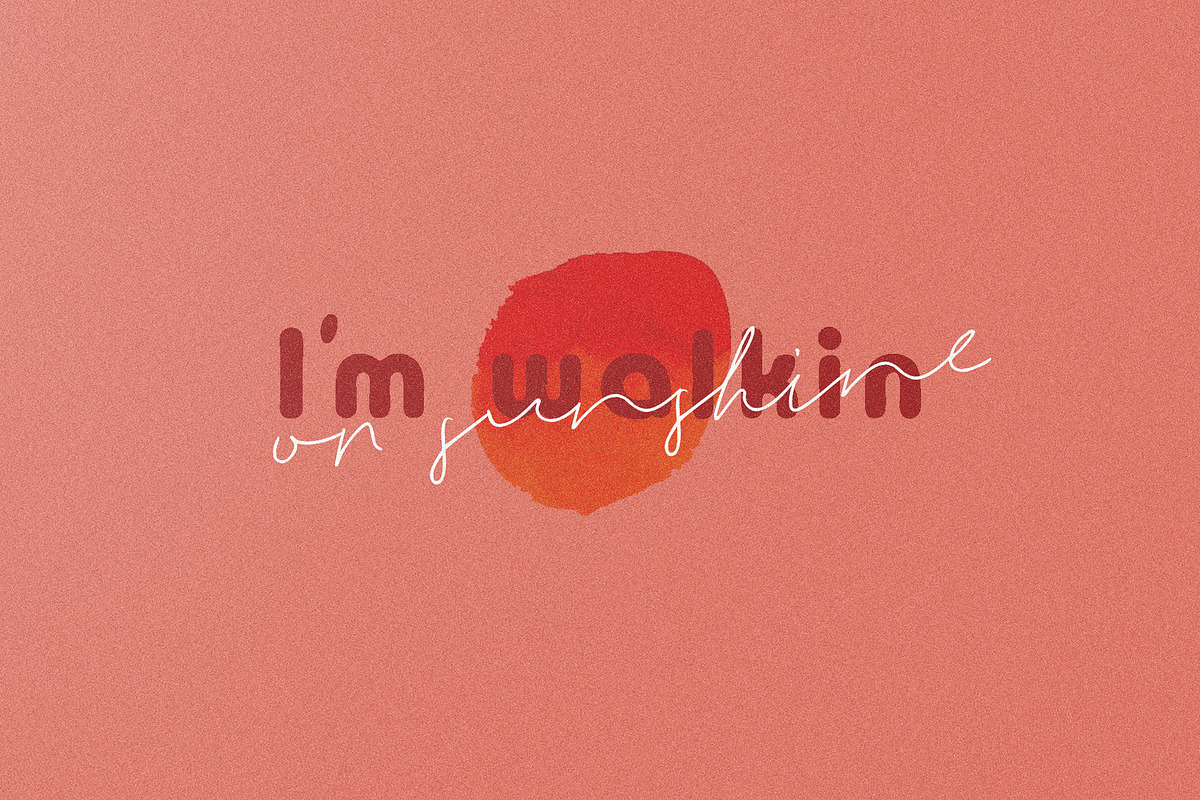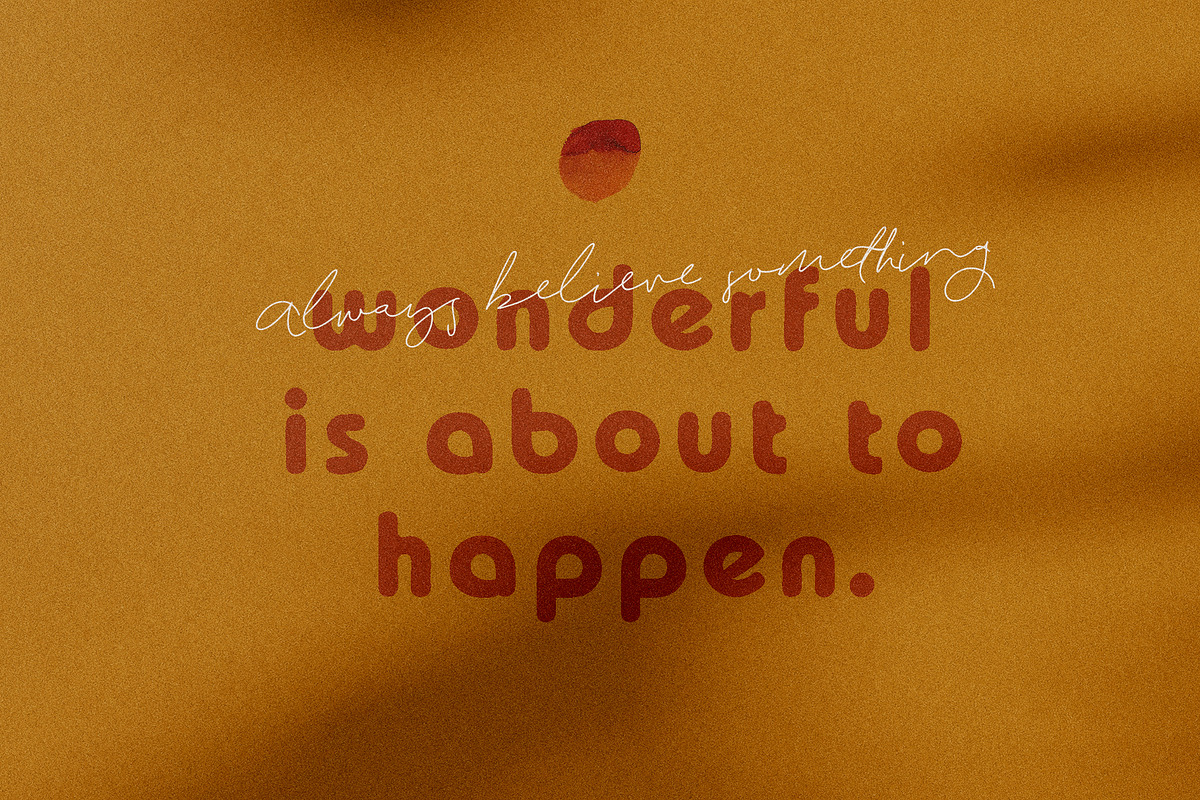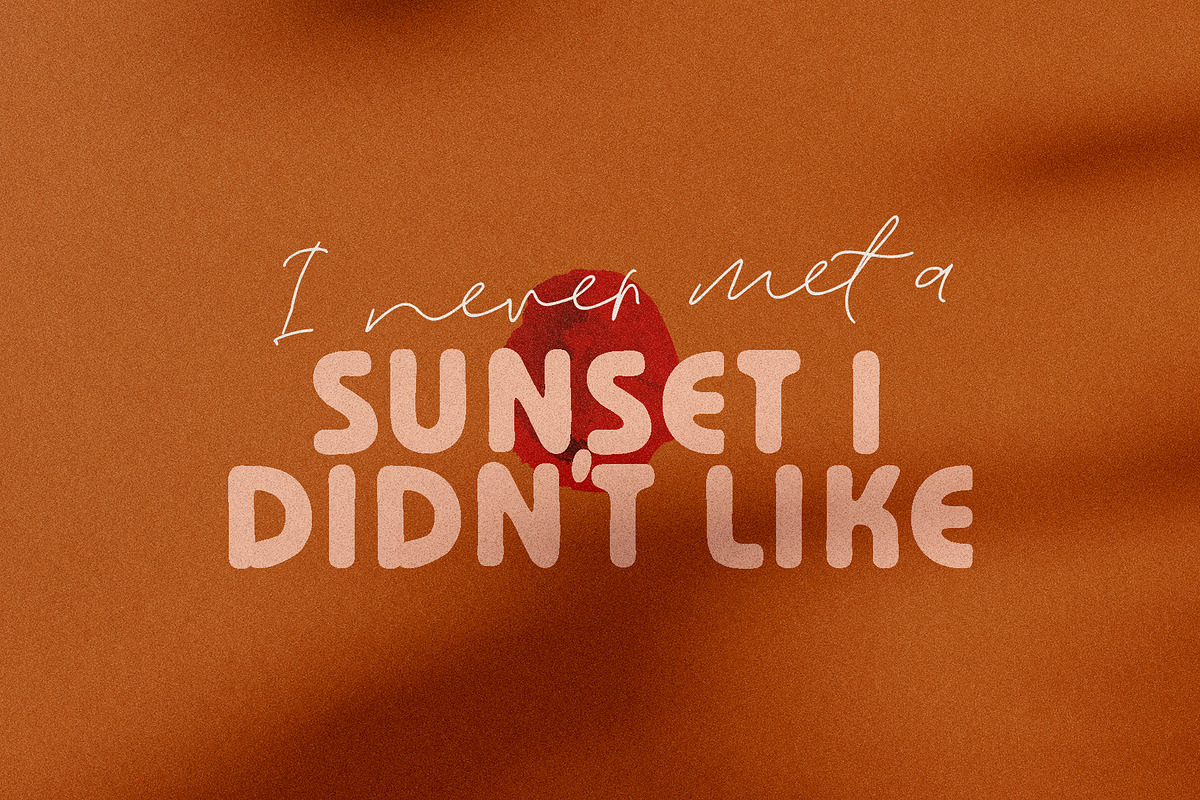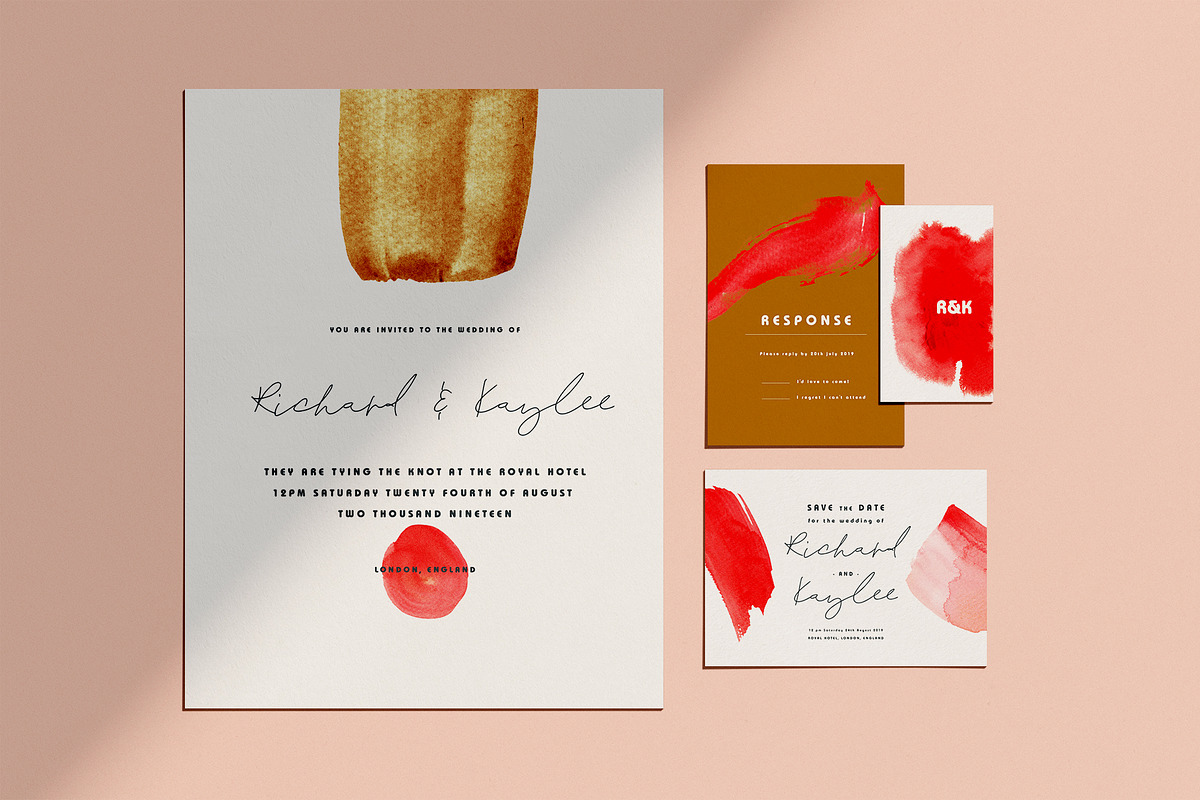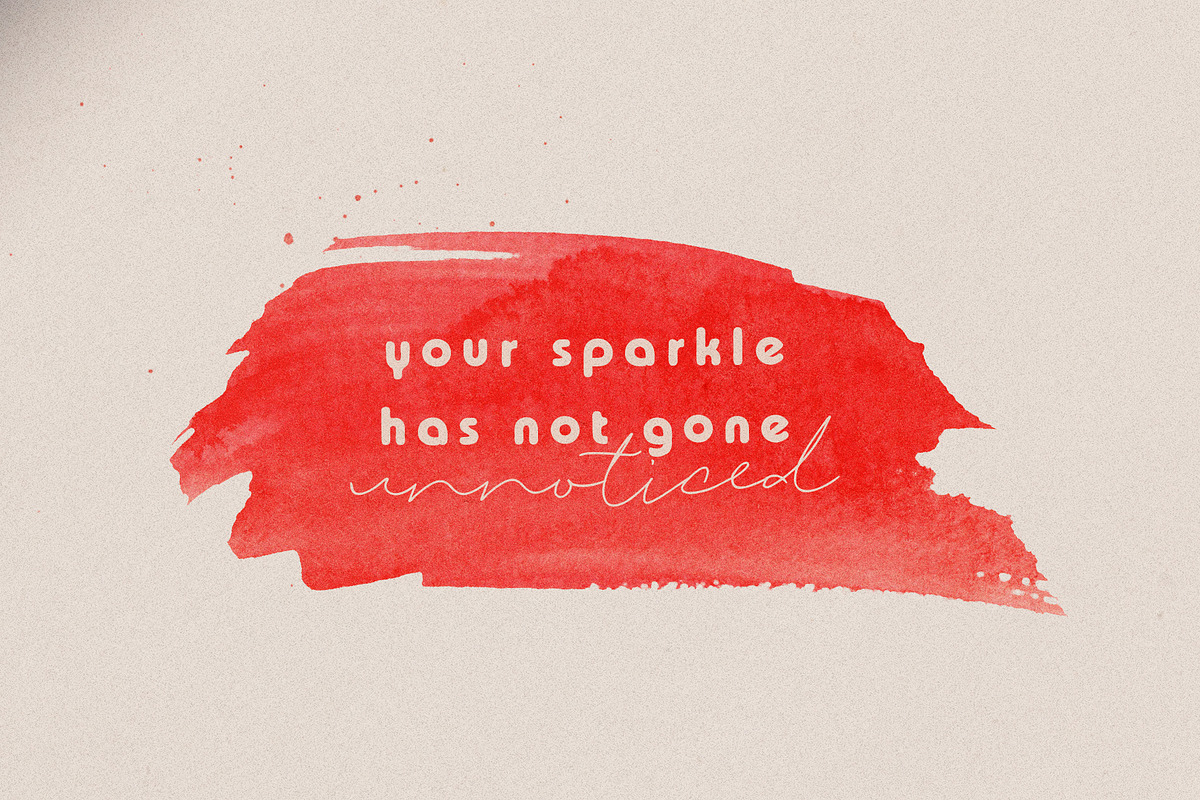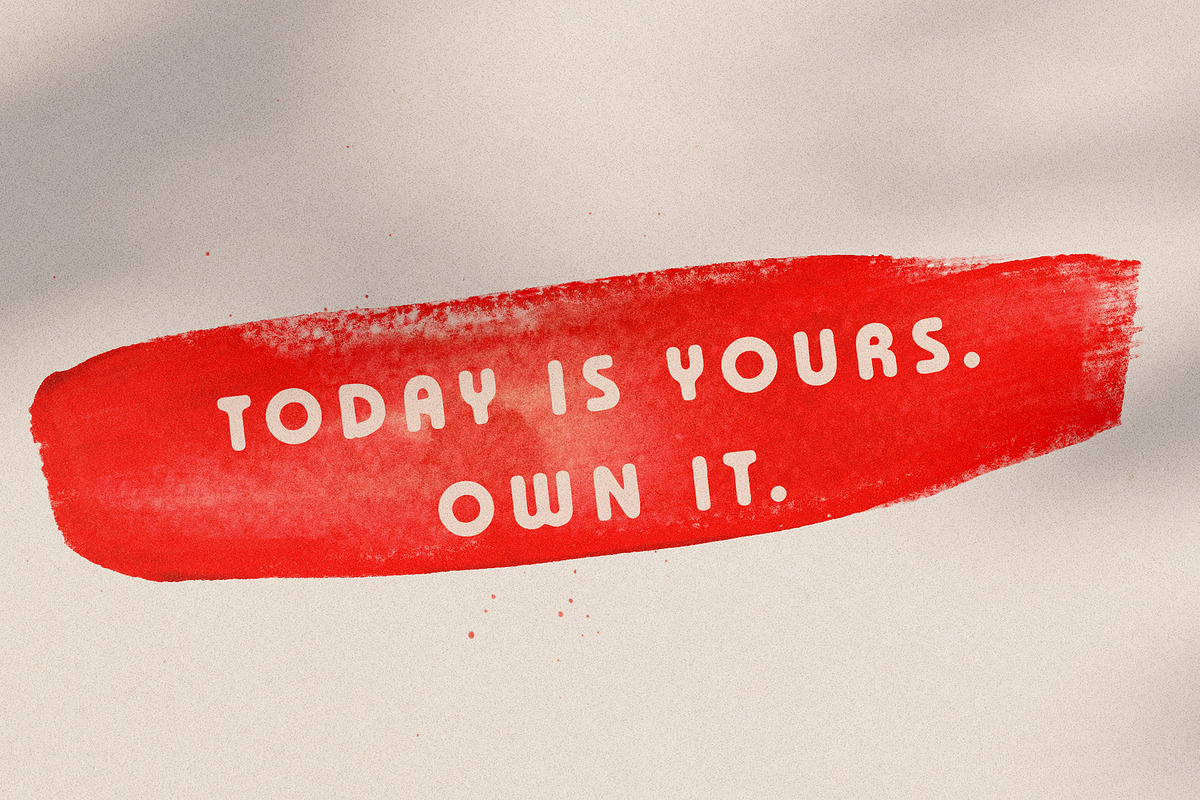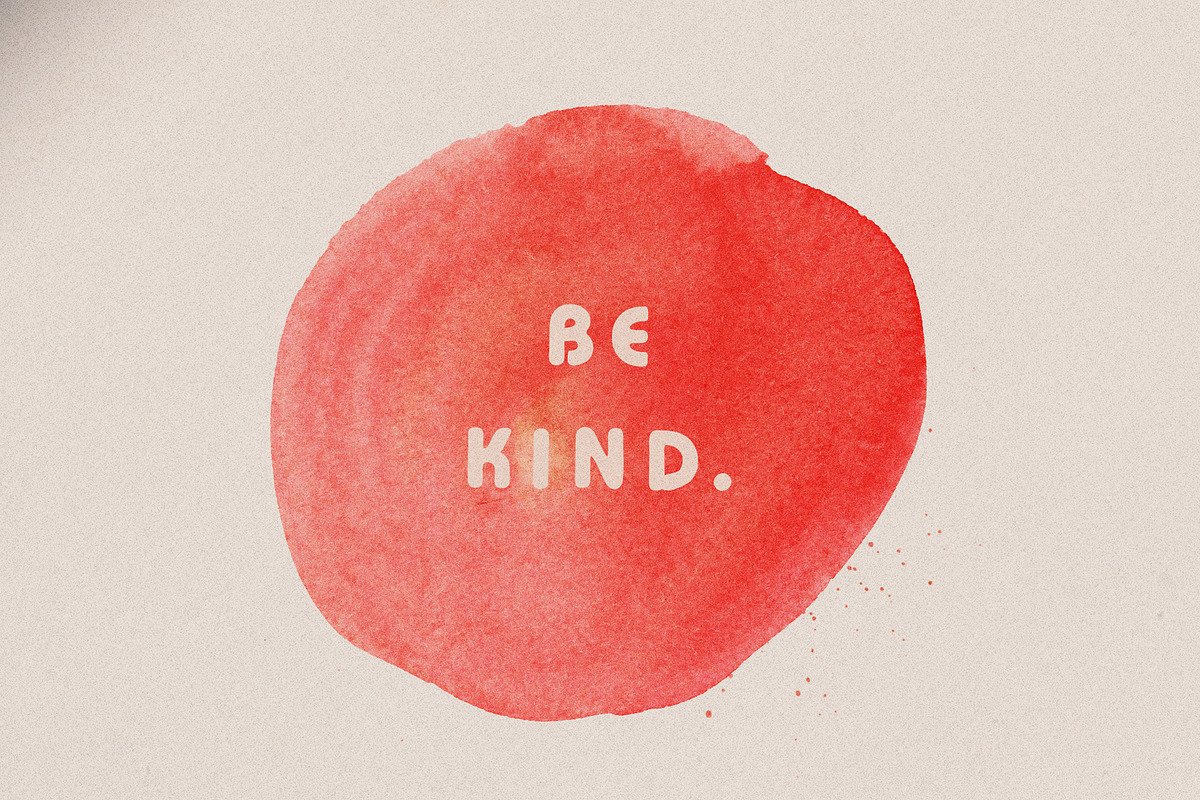
Darling Rosie Font Duo + Watercolor
Darling Rosie Font Duo + Watercolor is a fun hand written font duo that makes for stunning logos, quotes, wedding invites, blog posts, Instagram, and more!
They pair beautifully together in all kinds of applications. The sans looks gorgeous with tracking set at 200, as well as where it's normal setting at zero.
Darling Rosie Script includes lots of ligatures to make everything look perfectly natural and hand written, and there is a separate font file for the full set of lowercase alternates.
Darling Rosie Sans is a sans serif font that just goes so well with the script. It is rounded and bold, making a statement where you need one. This sans looks amazing in lowercase or all caps.
Then there is the fun little bonus watercolor brushes and washes to complete your design.